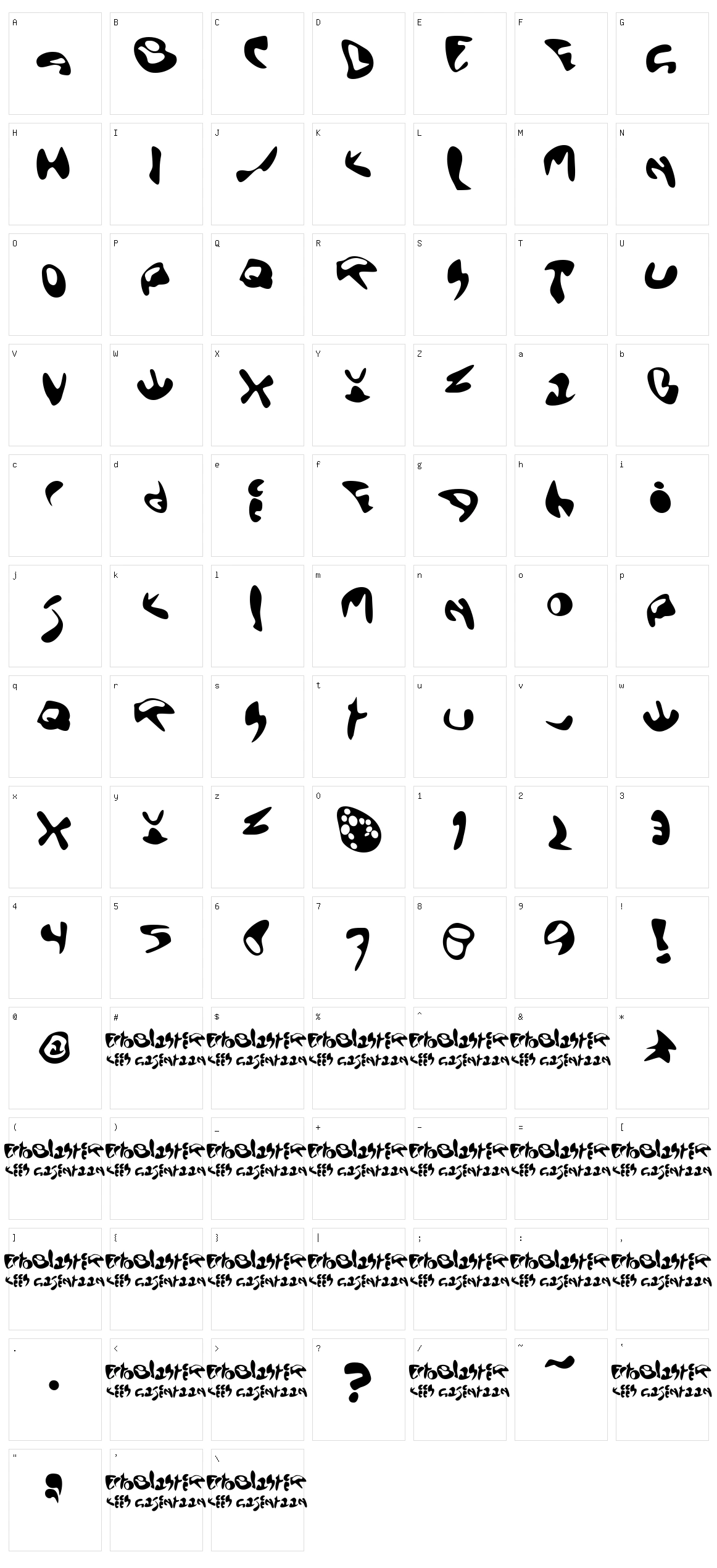
The free font Ecto Blaster is carefully designed by Hybrid Space, showcasing a thoughtful balance of creativity and usability and falls under the Distorted font style. When you download the ZIP file, it contains only 16.79 KB of font files, making it lightweight and quick to download. Please review the license details below to understand permitted usage and distribution rights. If license information is not available, we recommend using this font for personal projects only or contacting the author directly for commercial usage permissions.